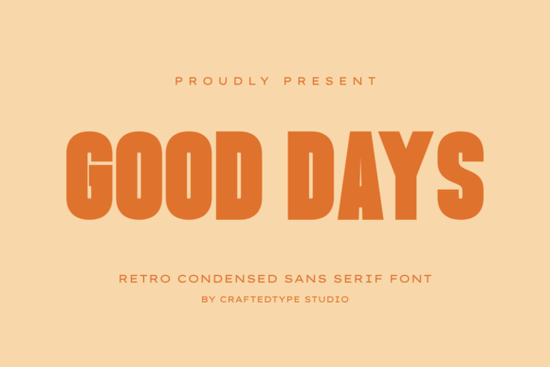
If you're searching for a condensed sans serif font that balances clean aesthetics with a retro feel, Good Days Font is worth a close look. Designed for creators who need strong visual impact without clutter, this tall, narrow typeface works well for print-on-demand products, branding, and modern packaging. Its sleek style fits both professional and playful projects, making it a versatile addition to any font library.
What makes Good Days Font a strong choice for print-on-demand projects?
Print-on-demand sellers often need fonts that stand out on small items like mugs or tote bags, yet remain readable from a distance. Good Days Font delivers on both fronts. Its condensed letterforms allow you to fit longer phrases on t‑shirt designs or posters without shrinking the text too much. The elegant spacing between characters also helps keep the overall look airy, even when the type is used in all caps.
For example, if you're creating minimalist quotes for tees or bold slogans for hoodies, this font adds a touch of retro charm without feeling dated. You can also pair it with a script or display font for contrast. If you prefer a slightly different condensed style, the Sweetshirt font offers another versatile option for apparel designs.
How can Good Days Font elevate your branding and logo designs?
Small businesses and designers looking for a modern yet timeless logo will appreciate the clean lines of Good Days Font. The tall, narrow structure gives logos a sophisticated, editorial feel. It works especially well for brands that want to communicate elegance with a hint of nostalgia – think coffee shops, clothing lines, or boutique studios.
Because the font is fully PUA encoded, you have easy access to all characters and alternates without needing extra software. This makes it simple to customize letterforms for a unique logo mark. For a more minimalist approach, the ArKnight font provides a similar clean aesthetic that pairs nicely with retro styles.
Where does this retro condensed sans serif work best beyond POD and branding?
Good Days Font isn't limited to merchandise and logos. Its cinematic feel makes it a solid pick for film titles, YouTube thumbnails, or event posters. The condensed letters create a dramatic, slightly compressed look that draws the eye – ideal for headlines that need to grab attention quickly.
Packaging designers will also find it useful for product labels on jars, boxes, or wine bottles. The font's retro vibe suits artisanal or handmade goods, while its clean edges keep it from looking overly vintage. If you need a more geometric condensed style for tech or sporty projects, the Gumoye font could be a good alternative.
For crafting projects like greeting cards, scrapbook titles, or invitations, Good Days Font adds a modern twist to classic shapes. Its narrow width means you can stack letters vertically or wrap them around circles without losing legibility. Another condensed sans serif that works well in similar layouts is the Kynetic font, especially when you want a bit more dynamism.
- Test readability at small sizes: Print a sample at 12pt to see how well the condensed letters work for small text.
- Experiment with kerning: Manual spacing adjustments can improve the overall look, especially for logos.
- Pair with a script font: Try Good Days Font with a handwritten style for contrast on t‑shirts or posters.
- Use alternates: Explore the PUA characters to add unique touches to your designs.
Tip: Start by using Good Days Font for a single headline or product name. Once you see how it performs, you can expand it to full design collections – it's a font that rewards experimentation.